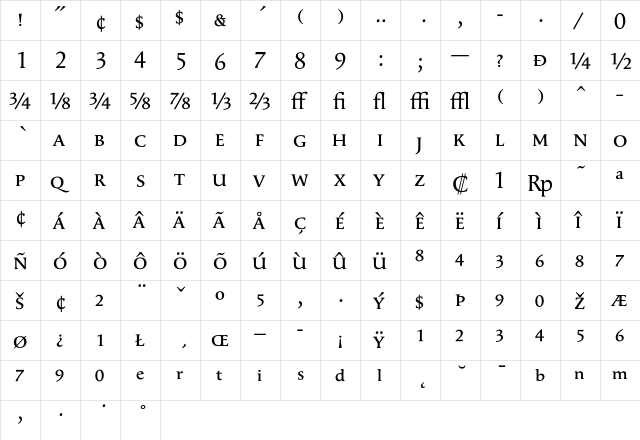
ApollineExp Regular
Design Context for ApollineExp Typeface
ApollineExp takes a measured approach to typography — its balanced proportions and neutral character make it a reliable workhorse for both digital and print work.